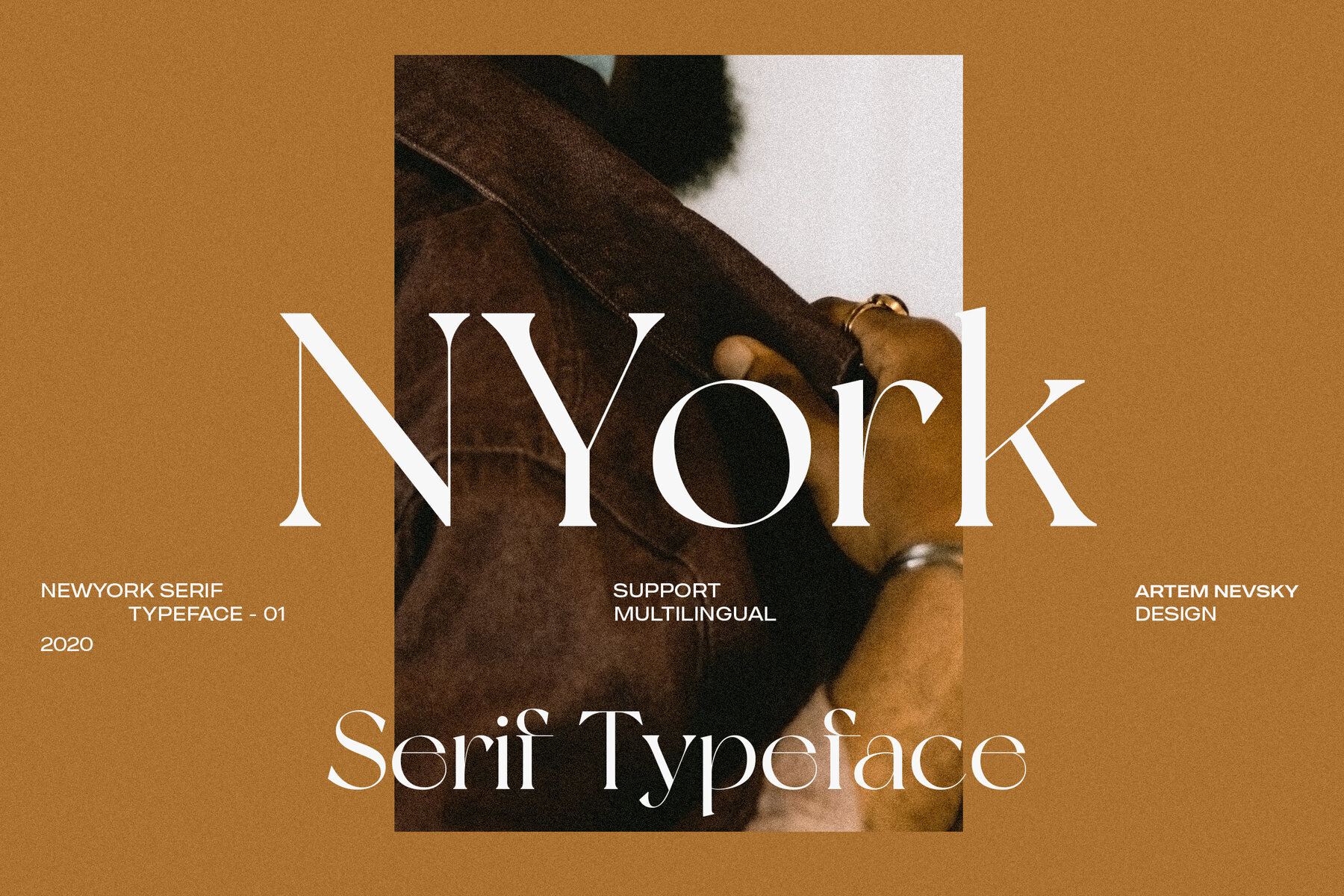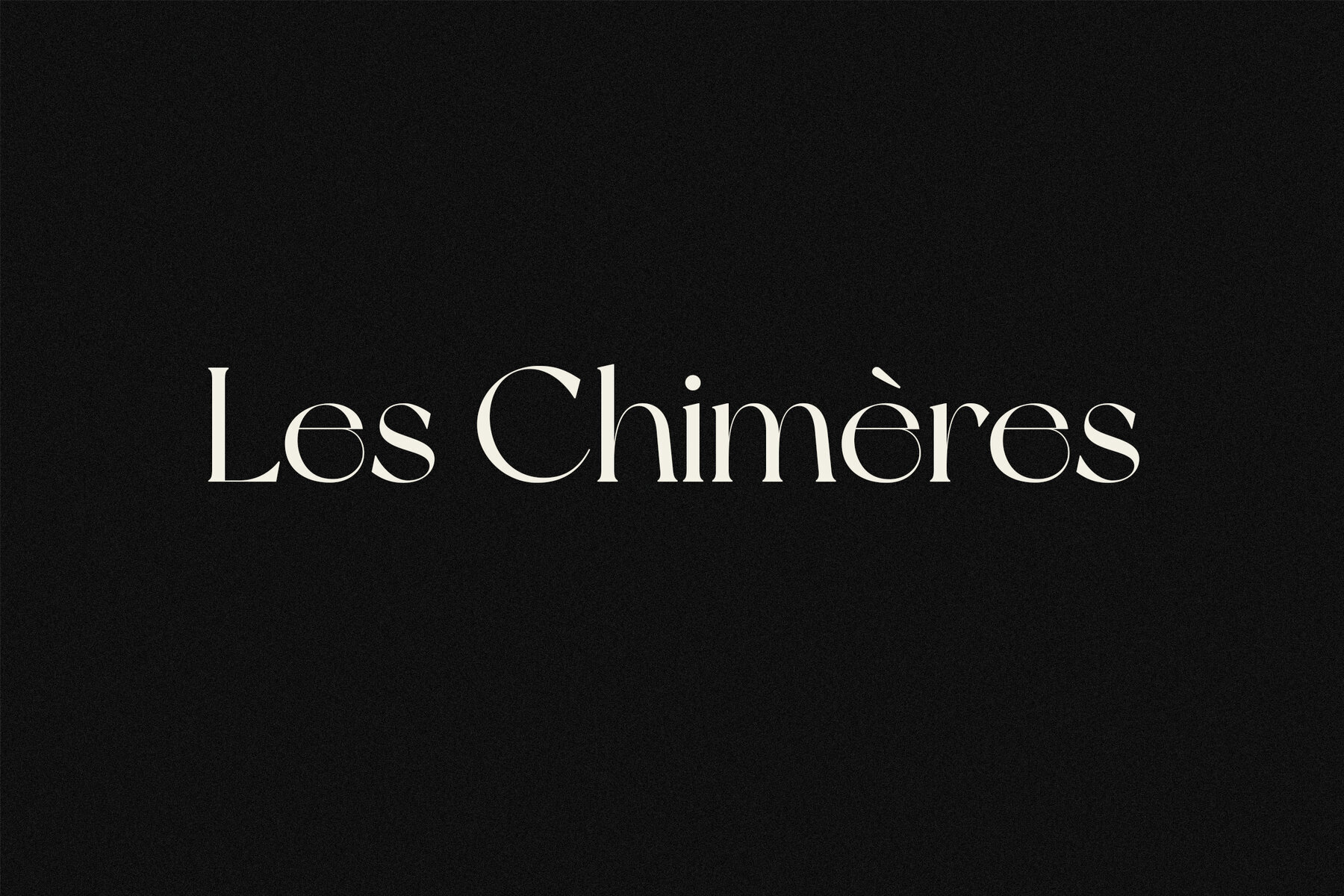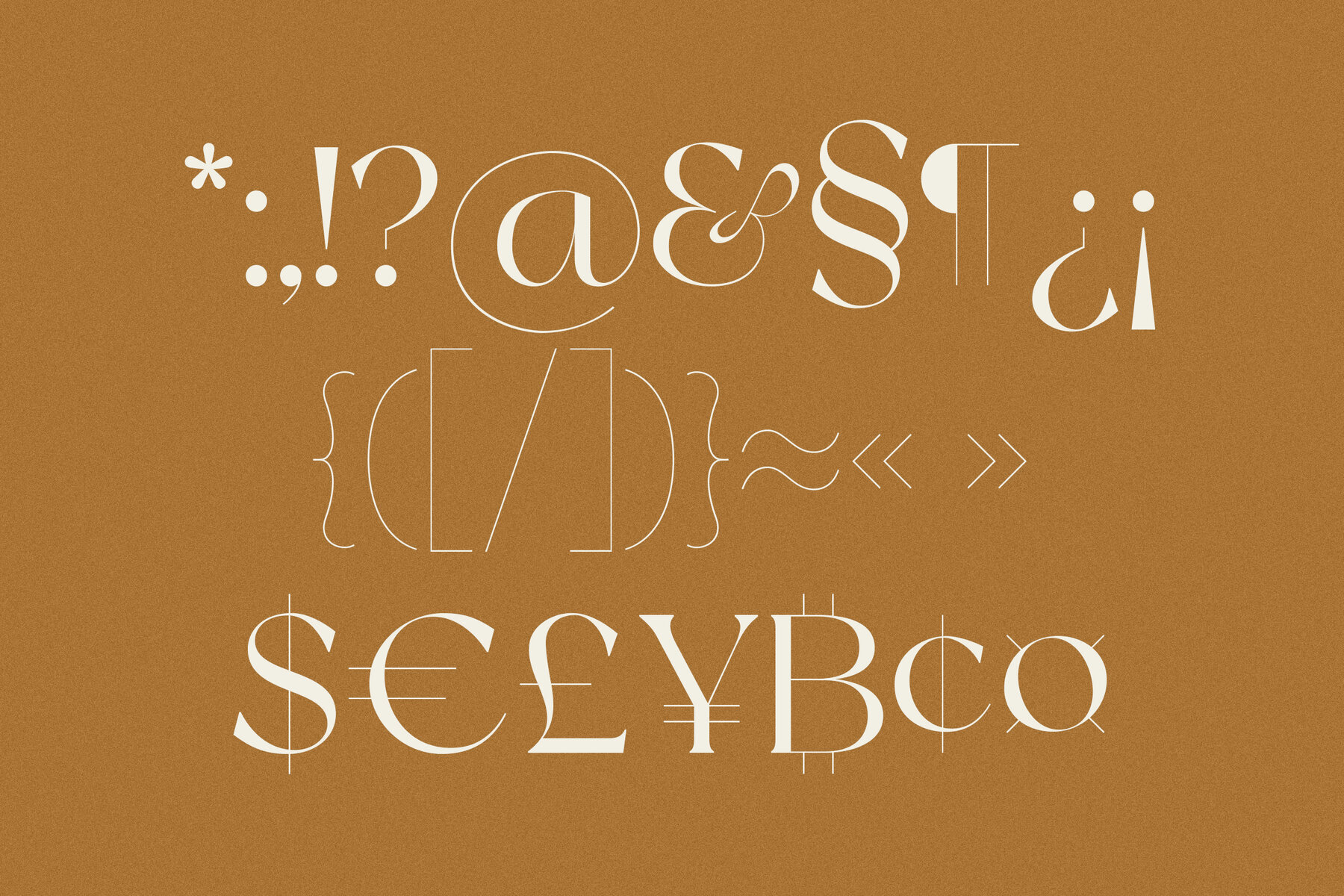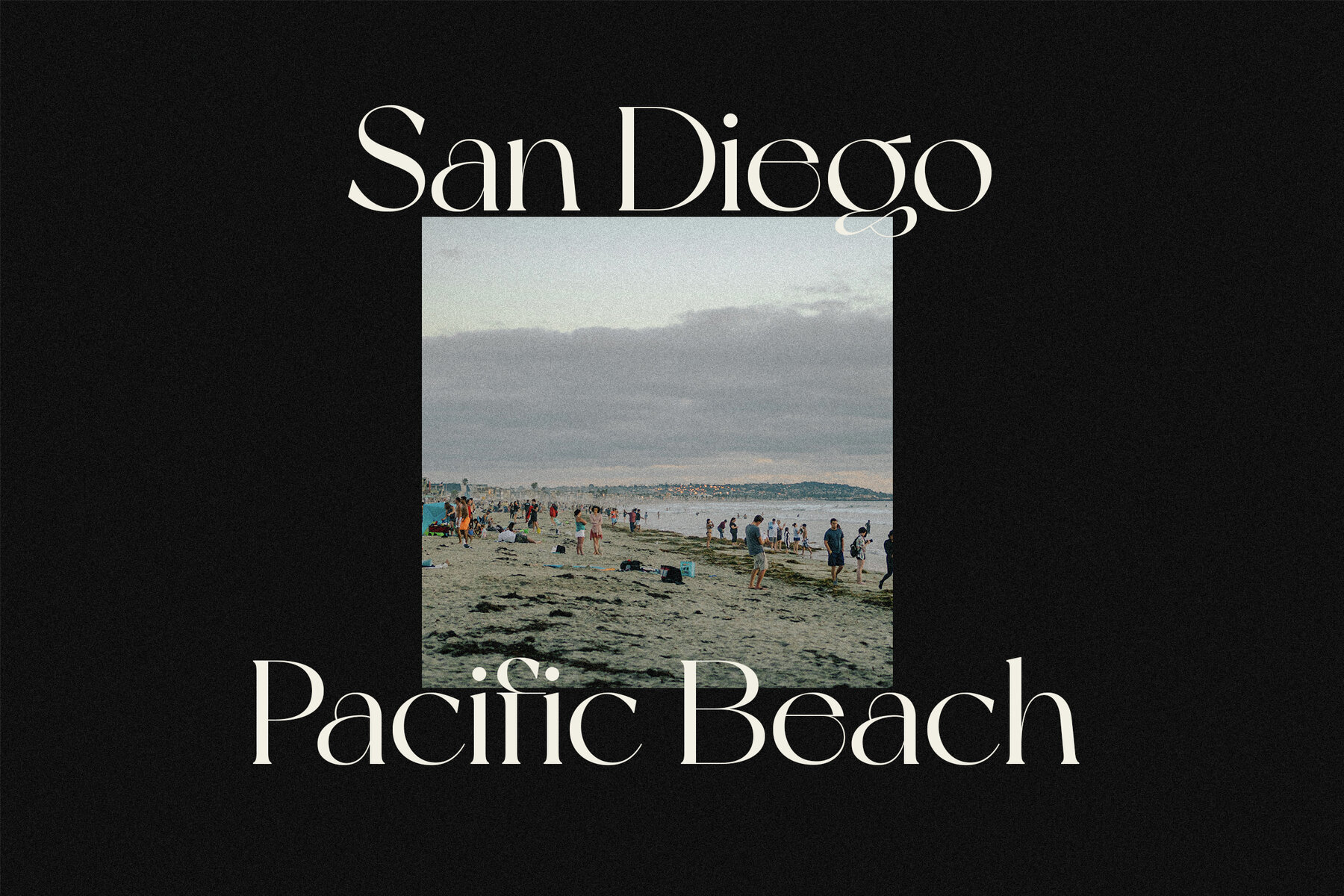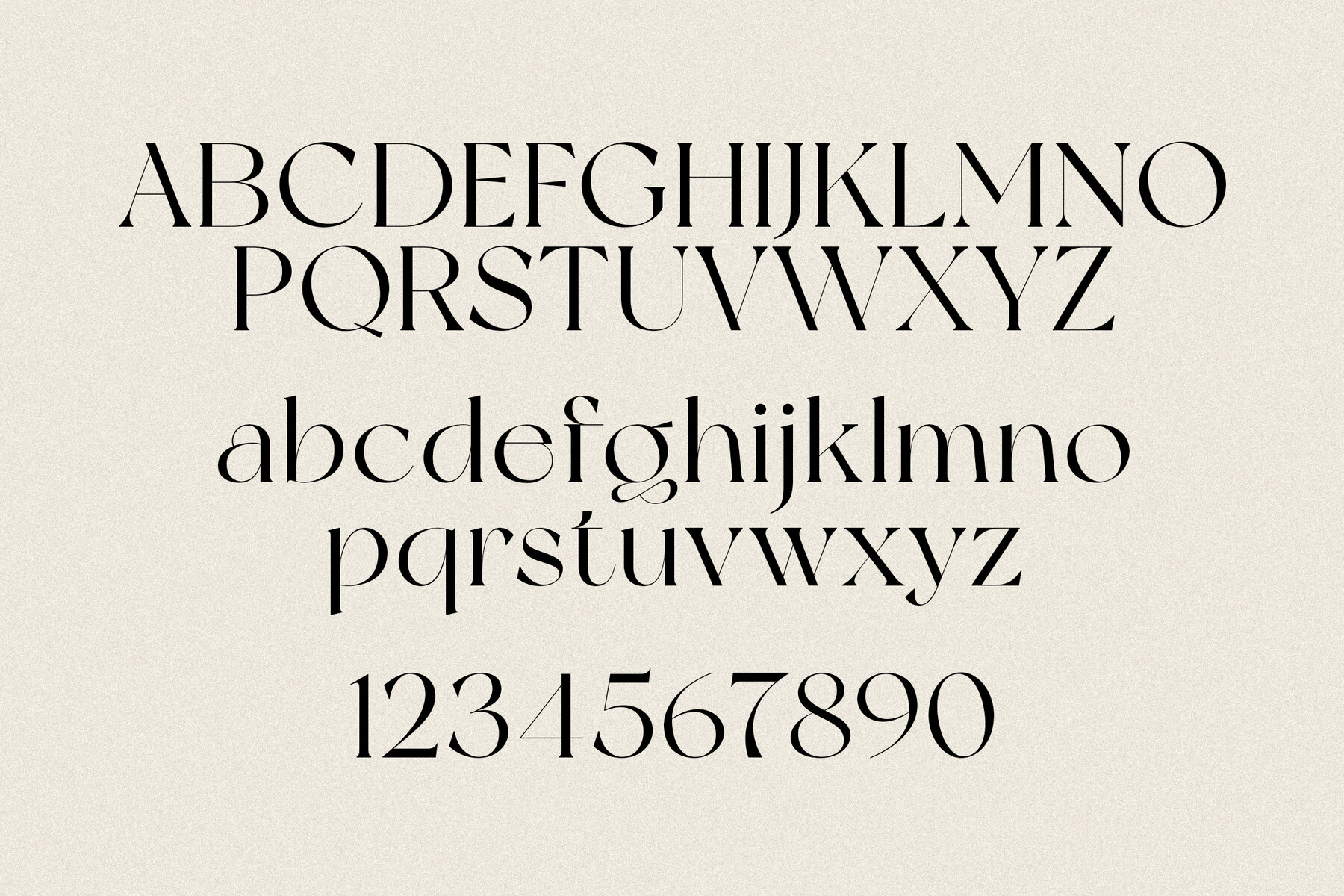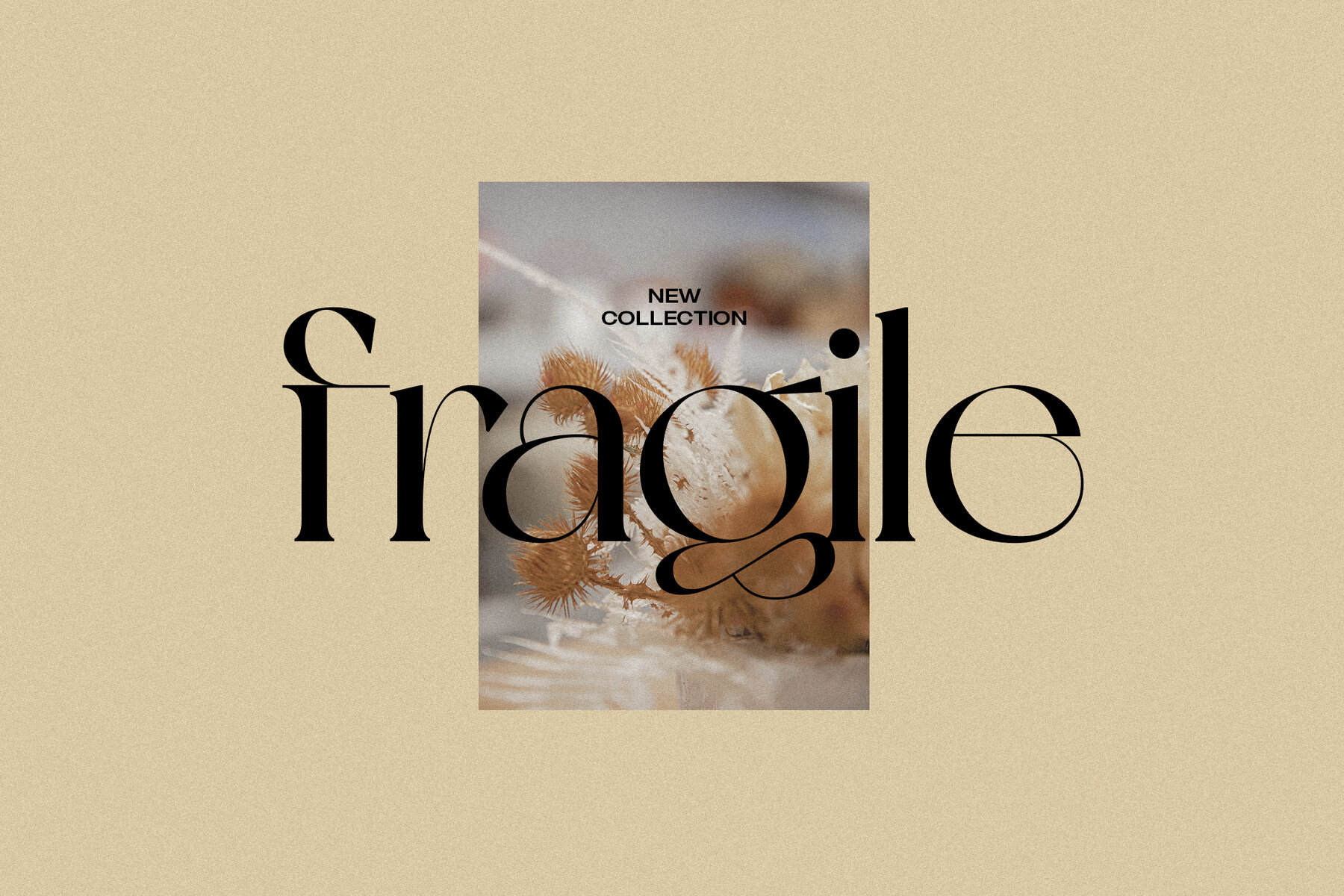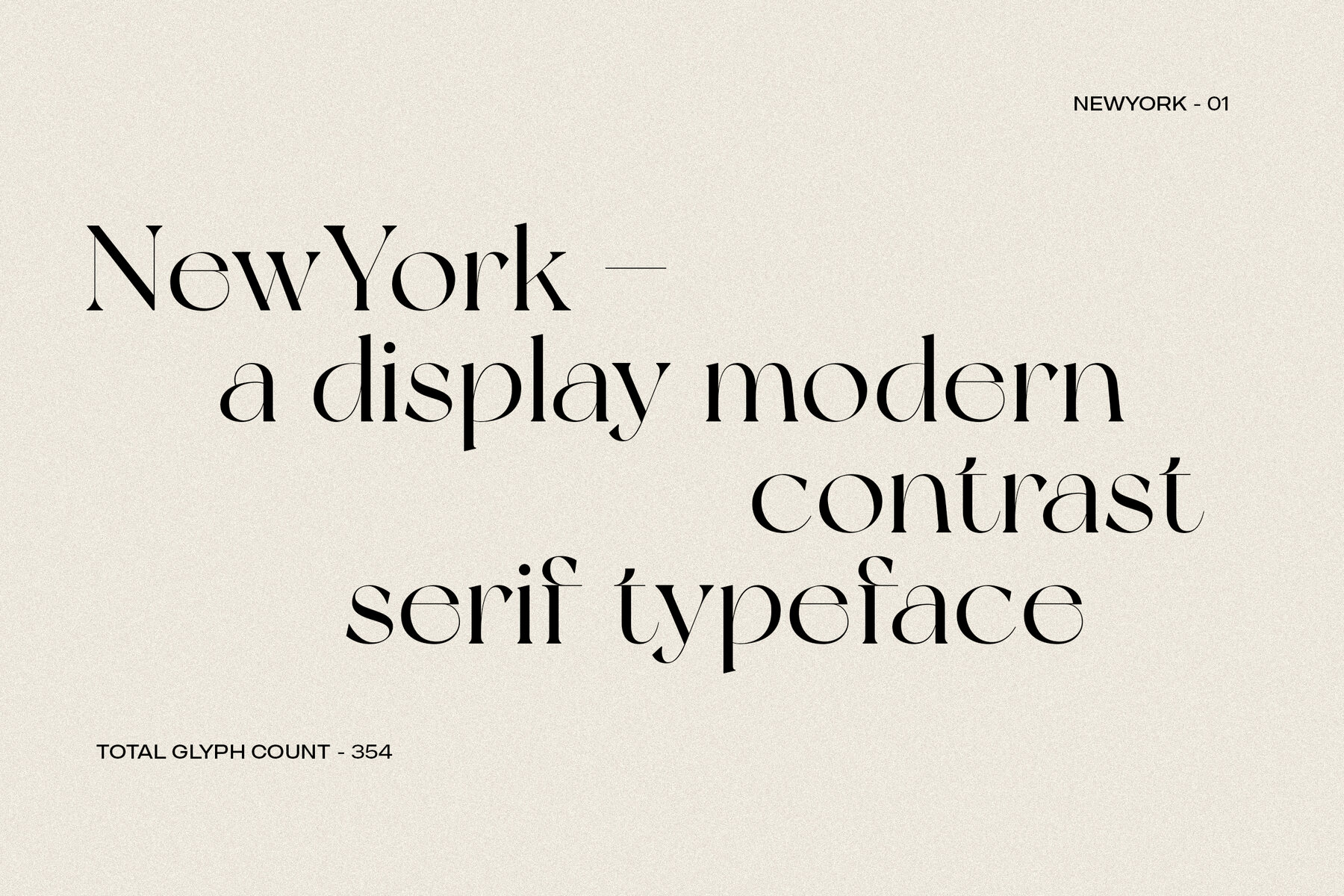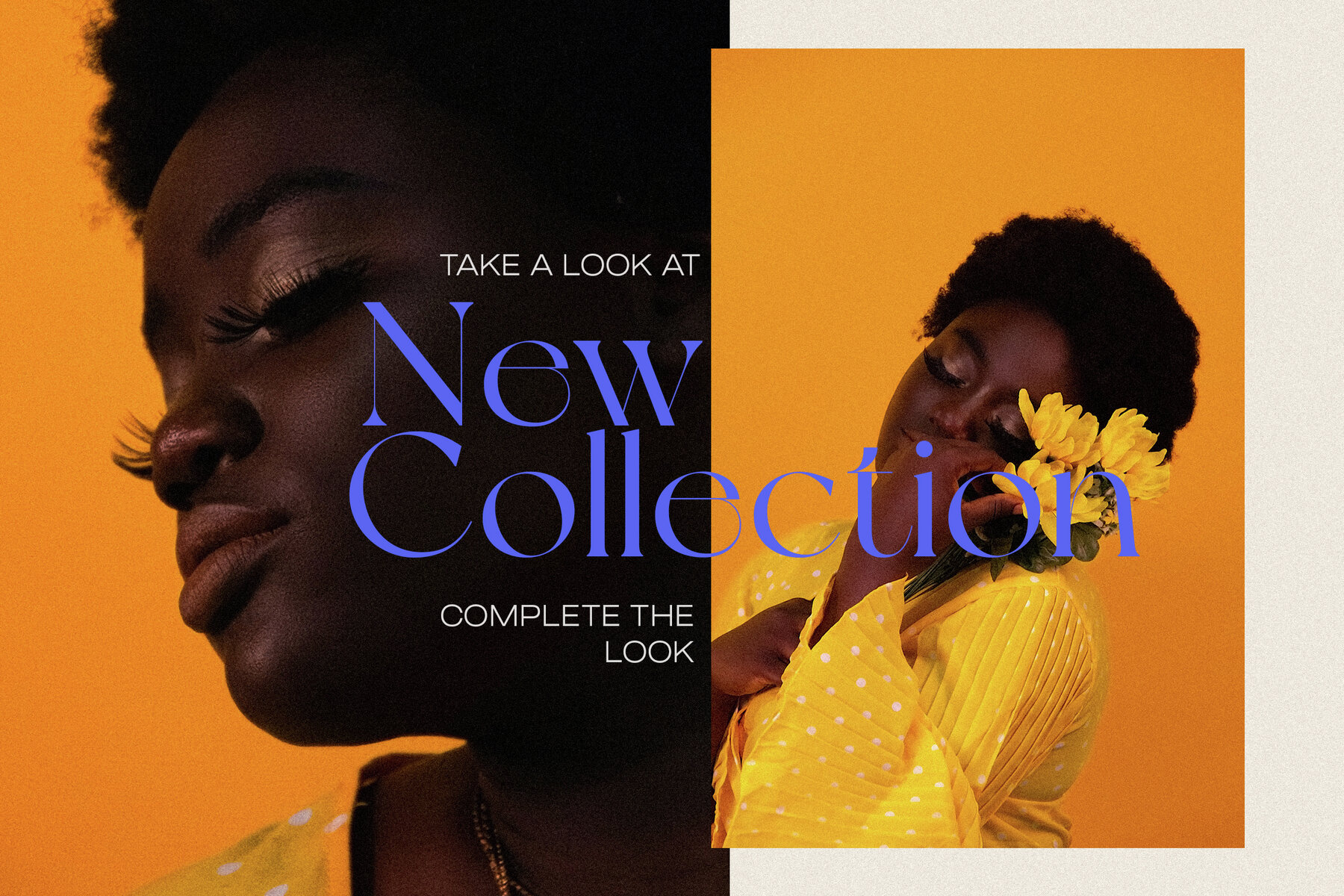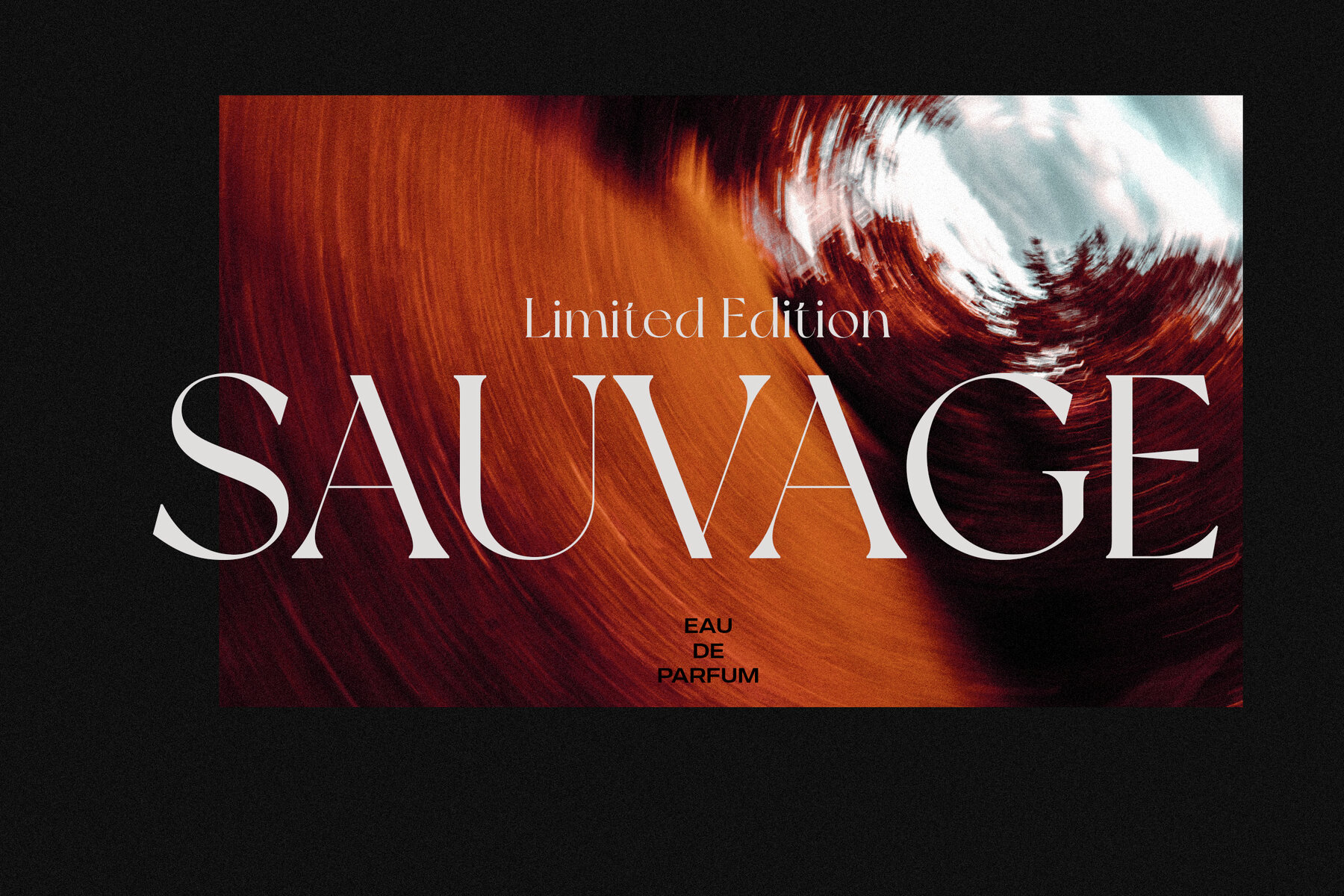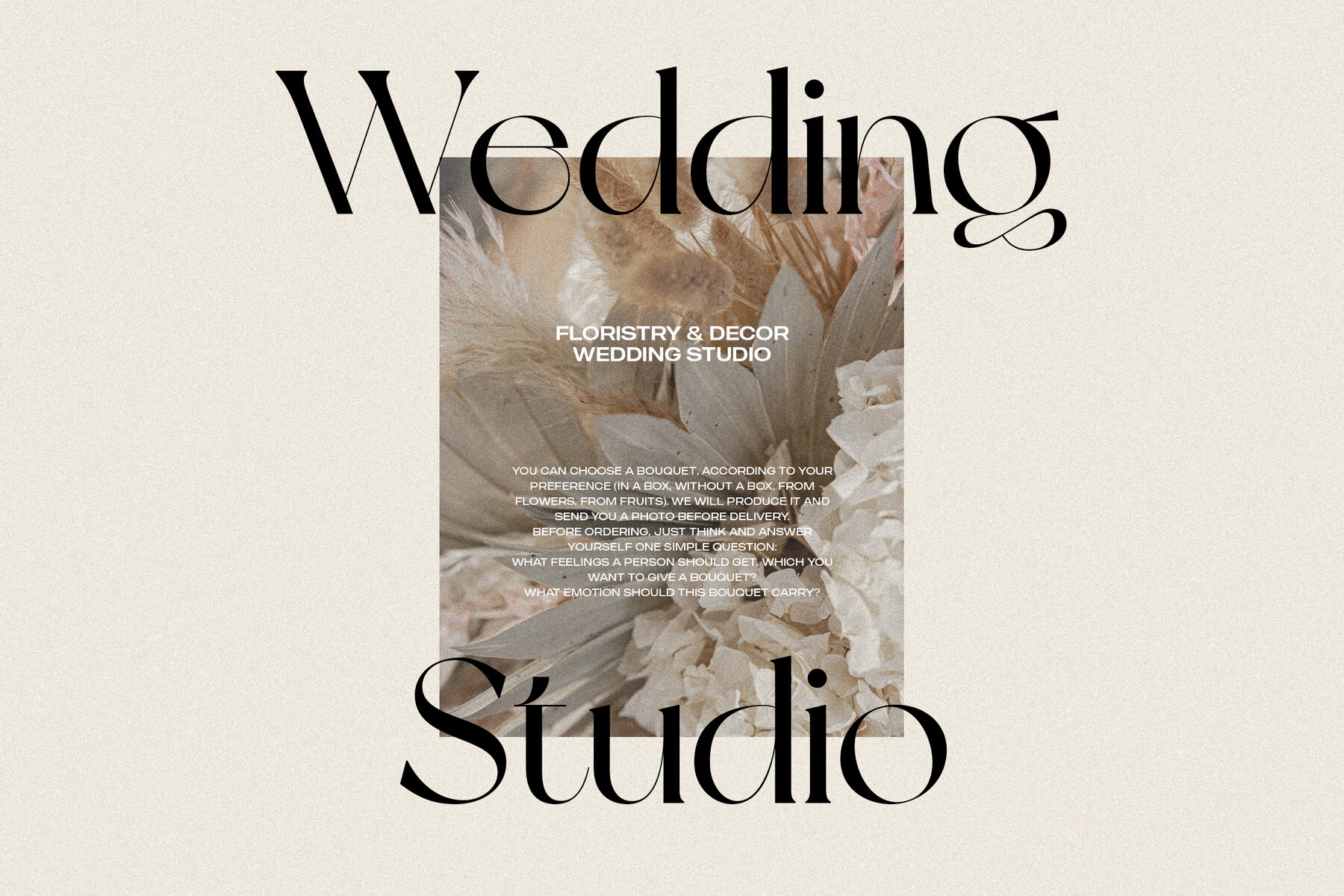
NYork Font
NYork Regular
This transitional serif typeface has a modern flair that blends traditional serifs with high-contrast stroke weights for a crisp, stylish look. Its bold yet refined appearance makes it suitable for both body text and display use, conveying elegance and sophistication. The font is versatile, with legible letterforms that are perfect for creating a dynamic, contemporary aesthetic in editorial or luxury branding contexts.